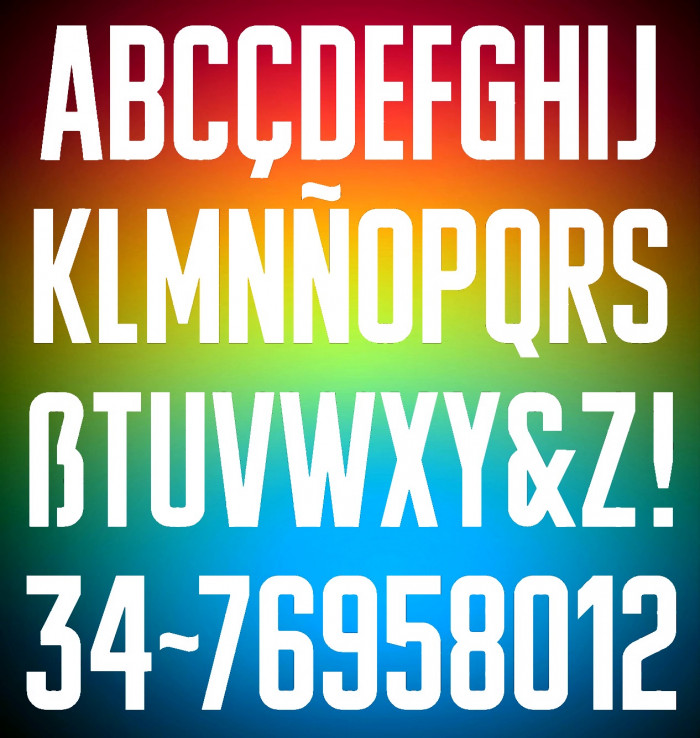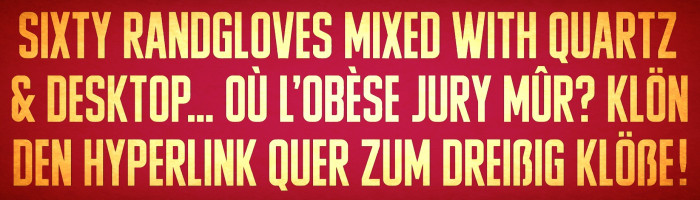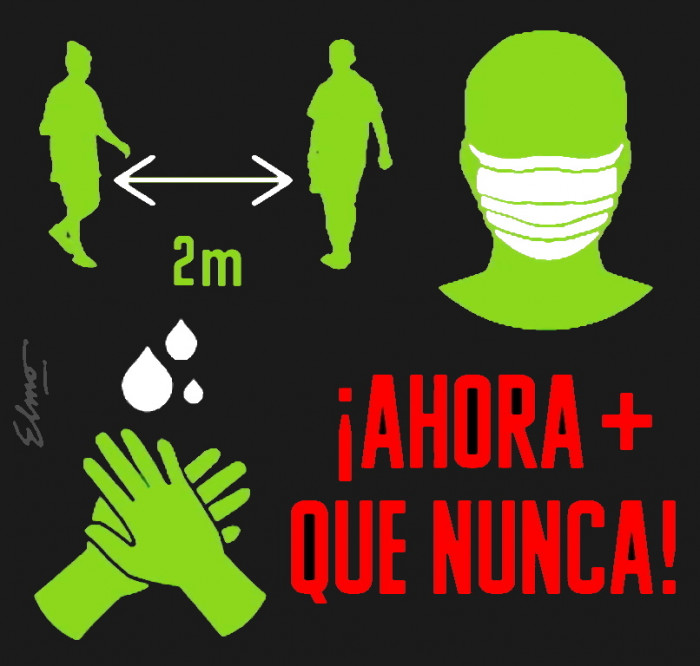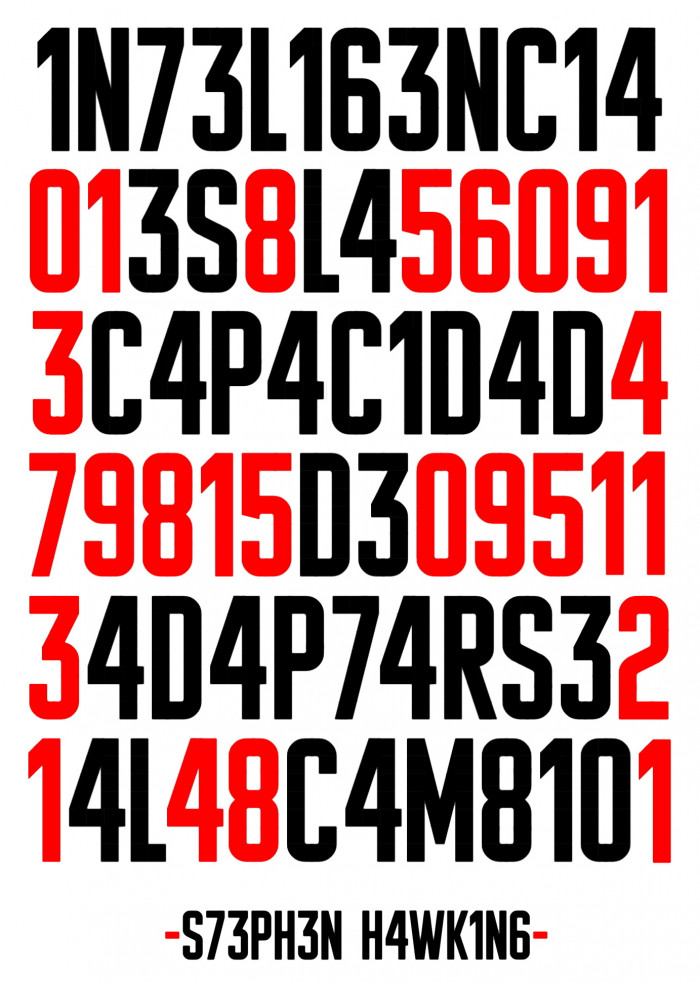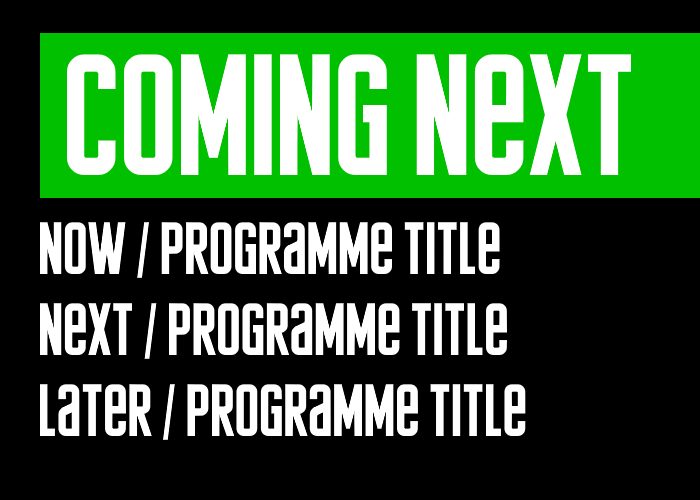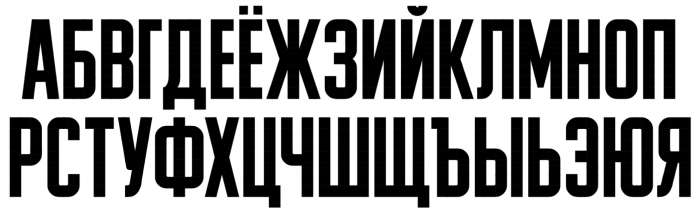
Unicase font with "A" & "E" glyphs alternates. Inspired on DIN Condensed Bold and others.
This font looks great! 10/10
can you make Cyrillic version?
@SeanB901 & hotdimityr: Thanks. About cyrillic, I hadn't thought about it, but I think it's a good idea and I'll take note.
coming next...
By popular suggestion ?, added Cyrillic.
Cool font, it takes a lot of skill to create it, it just seems simple, I really like its strict and clean geometry, although it creates a very large predominance of black in the letters W A M N Ж. And because of the same strict geometric character in Cyrillic, the cuts in the descenders of Д Ц Щ look very strange, which I would make straight and same. But the biggest problem with the letter У is that you should not make such a long leg for this letter, it is too unsymmetrical and falls to the right, sometimes to fix this, the left diagonal stroke is tilted quite a bit more than the main right one. Also, this version of И, although it adds more white inside the letter compared to N, it looks very old-fashioned, because it was used in the very first sans serifs, which were made by cutting off serifs and removing the contrast of modern serifs. It also immediately seemed to me that the letter R with a too dynamic leg seemed too out of order, maybe it was worth making it vertical? Also in my clone, I added more white inside Ф Ш Щ Ж, making them a bit wider.
@Dmitriy Sychiov: Thank you very much, pal. I really appreciate your kind words about "zanze", but much more I appreciate your always very interesting information and advice about the construction of the Cyrillic alphabet that you so kindly give us. As usual, your opinions are very accurate and appropriate, so I have tried to follow them as you recommended. I hope my Cyrillic glyphs have improved with them, but if they haven't, the fault is only mine and I hope you'll recommend me new improvements to achieve them.
You should add greek:
@lucapri: I've thought about it many times, but the truth is that I've never designed Greek letters for any of my fonts. It's a pending subject for me and I'll consider the possibility of doing them again.
I like these letters.